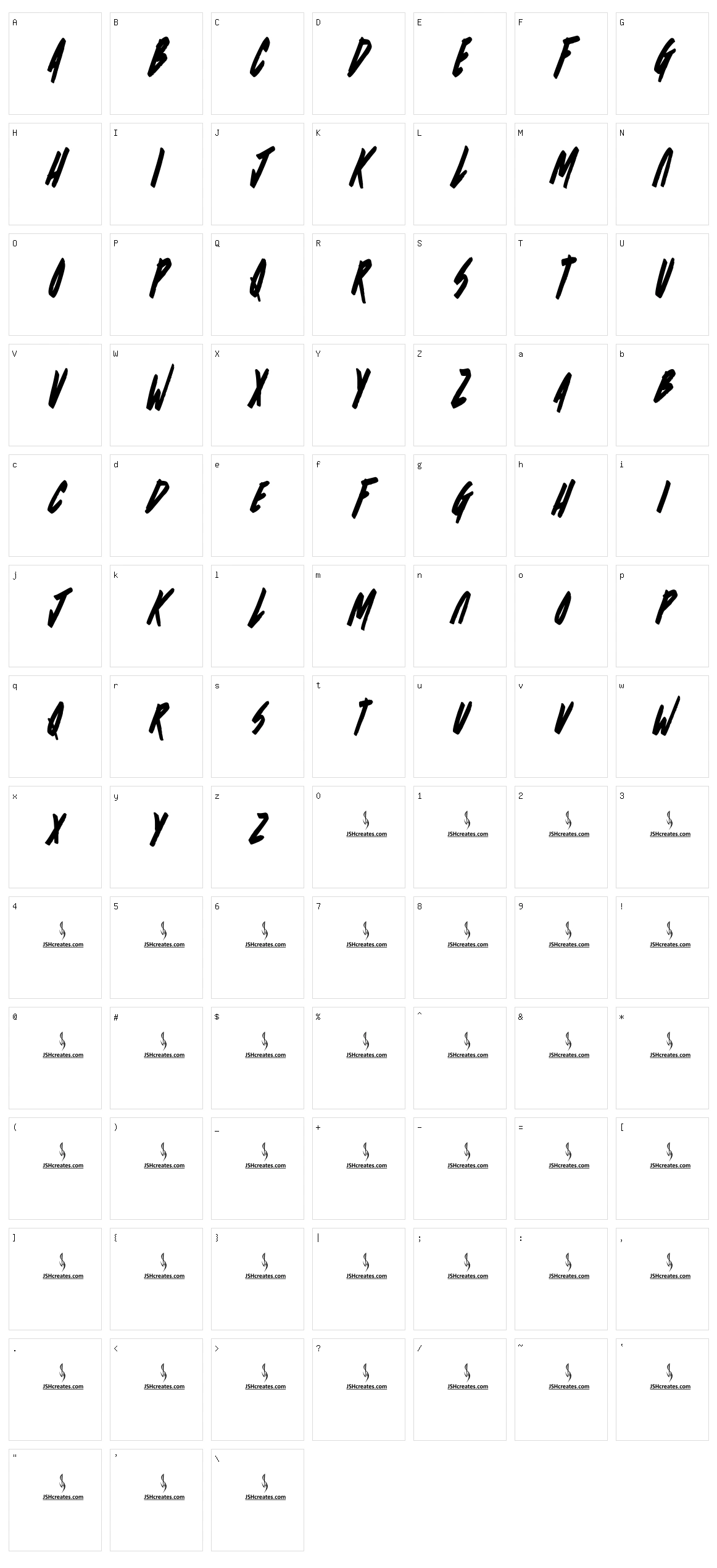
The free font Creative Dreams is carefully designed by JSH creates, showcasing a thoughtful balance of creativity and usability and falls under the Script font style. When you download the ZIP file, it contains only 29.25 KB of font files, making it lightweight and quick to download. Please review the license details below to understand permitted usage and distribution rights. If license information is not available, we recommend using this font for personal projects only or contacting the author directly for commercial usage permissions.